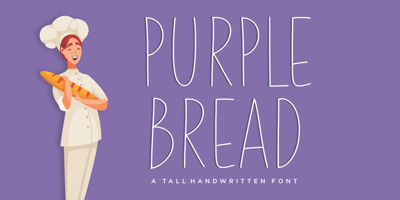
Purple Bread Font Family was designed by Restu Angga and published by Balpirick. Purple Bread contains 1 styles and family package options. Purple Bread is a Tall Handwritten Font.Whether you’re using it for crafts, digital design, presentations, or making greeting cards, this font has the potential to become your favorite go-to font, no matter the occasion!This font only has allcaps letters. – also multilingual supportEnjoy the font! Feel free to comment or feedback!Thank you!